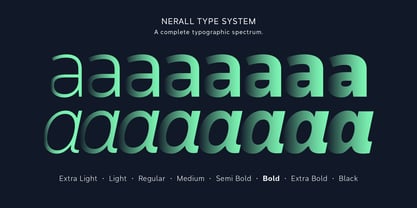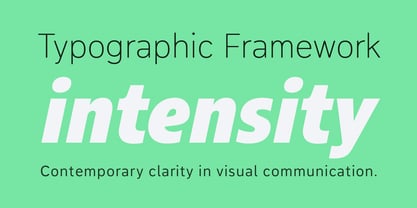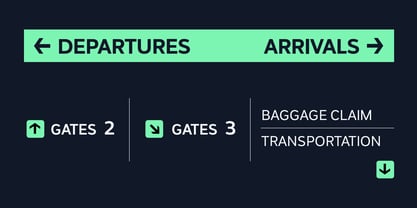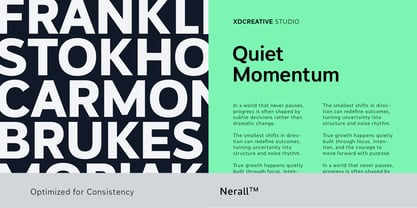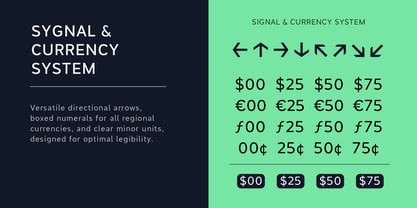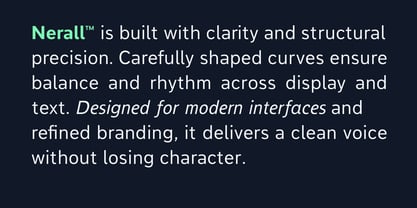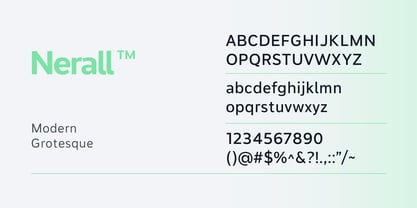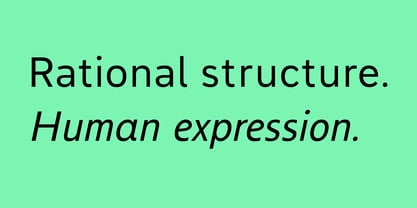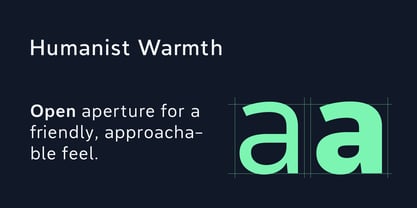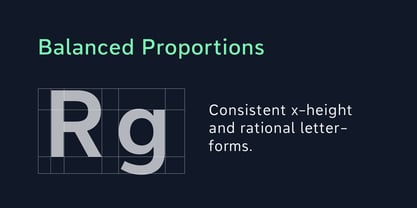
Nerall
by XdCreative
The Nerall Font Family was designed by Faldy Kudo and published by XdCreative. Nerall contains 18 styles and family package options.
Nerall is a contemporary grotesk built for modern brand systems. Engineered with precision and clarity, it delivers a confident, adaptable voice across editorial, corporate, and digital environments. Rooted in the neo-grotesk tradition, Nerall balances rational structure with subtle humanist detailing creating a typeface that feels stable, refined, and distinctly alive. With 8 weights from Extra Light to Black and carefully drawn true italics, the family forms a complete typographic system. The variable version offers seamless weight flexibility, making Nerall highly adaptable for scalable visual identities. Designed for branding, editorial, packaging, and interface design, Nerall provides a clean yet authoritative presence structured enough for corporate communication, expressive enough for contemporary design systems. Extended Latin language support and essential OpenType features ensure professional versatility across global projects. What began as structural study evolved into a refined type system designed to feel precise yet alive. Completing Nerall marks both a technical milestone and a deeply rewarding creative journey